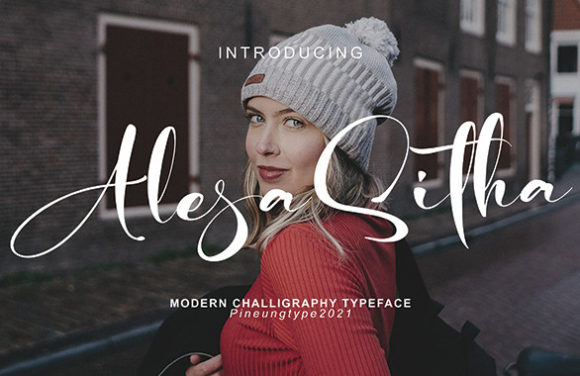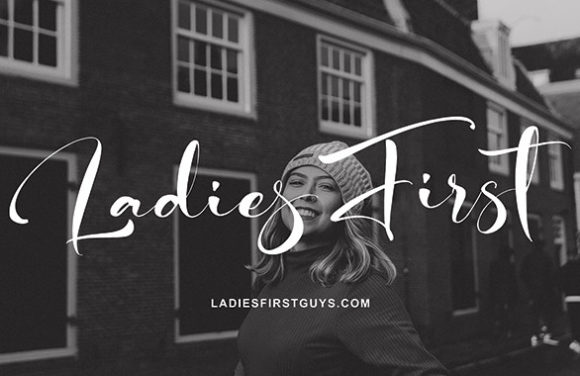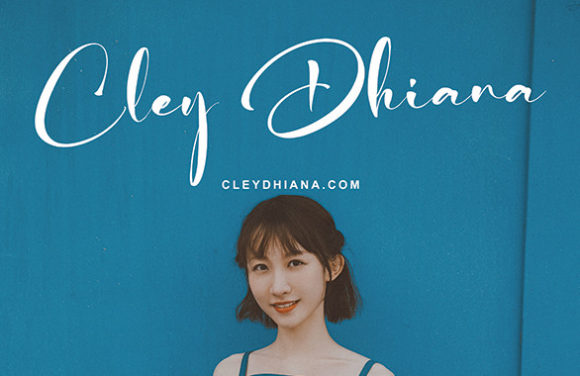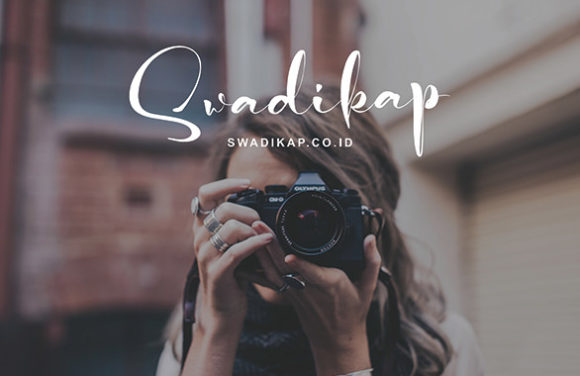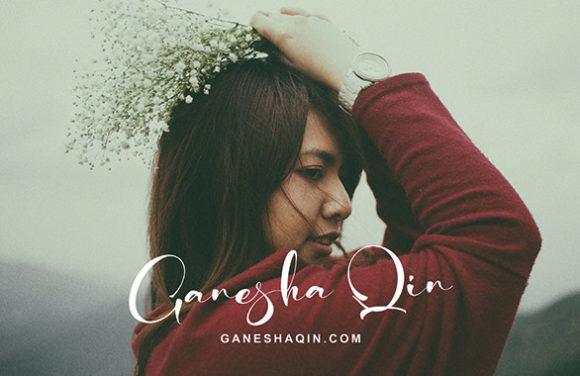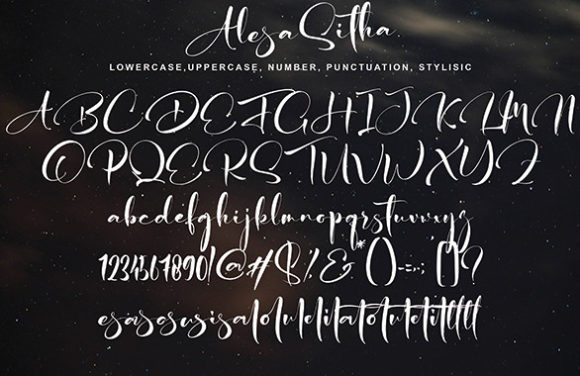
Script Fonts Alesa Sitha Font 0 129 FacebookTwitterPinterestWhatsApp 1 of 6 Alesa Sitha Font Poster 2... Alesa Sitha Font Poster 3... Alesa Sitha Font Poster 4... Alesa Sitha Font Poster 5... Alesa Sitha Font Poster 6... About Alesa Sitha Font Alesa Sitha is an exquisite script font, carefully crafted in a calligraphic style. It is perfectly suitable for projects that need an authentic vibe and a stylish, expensive look! DOWNLOAD NOW